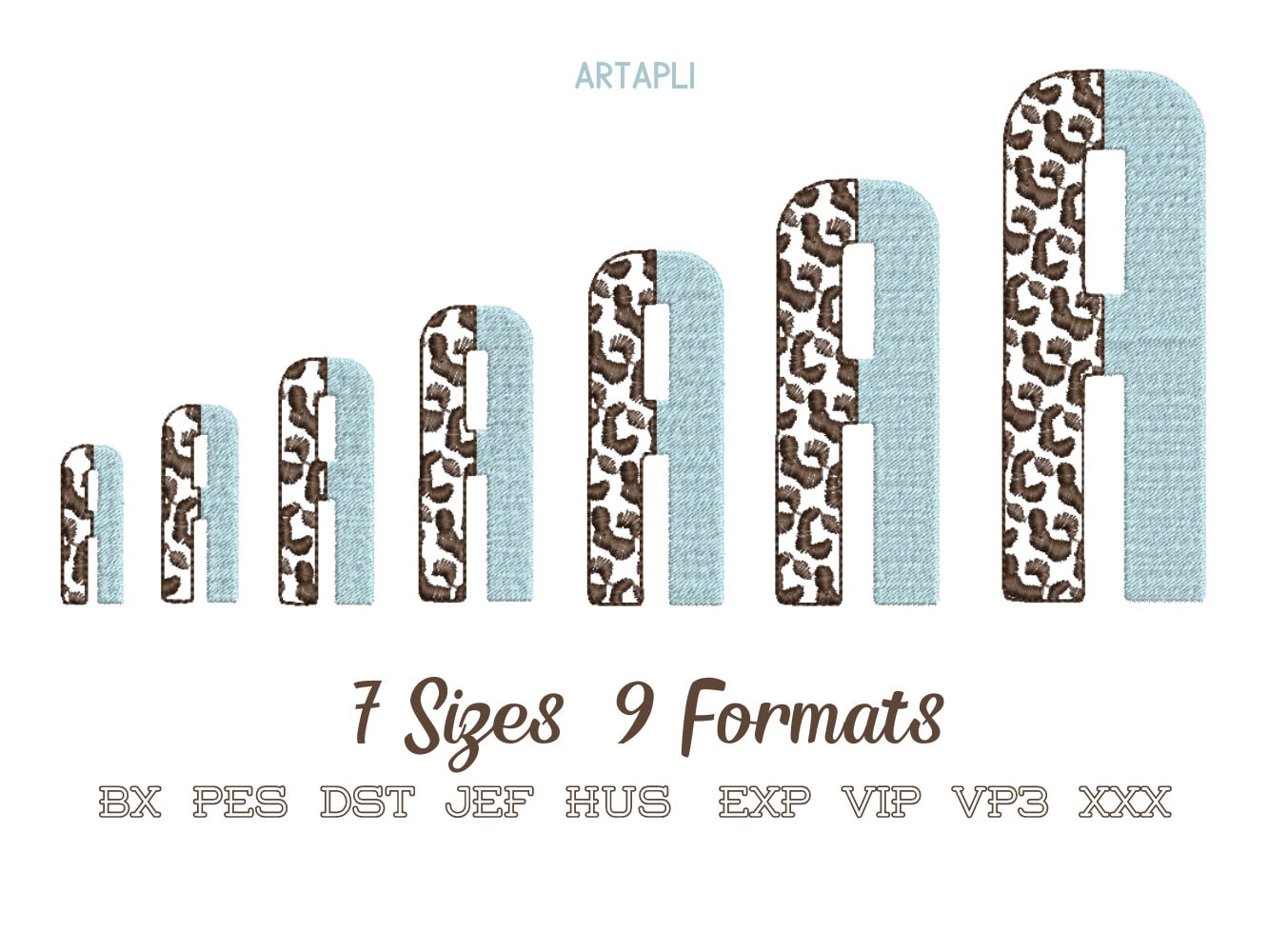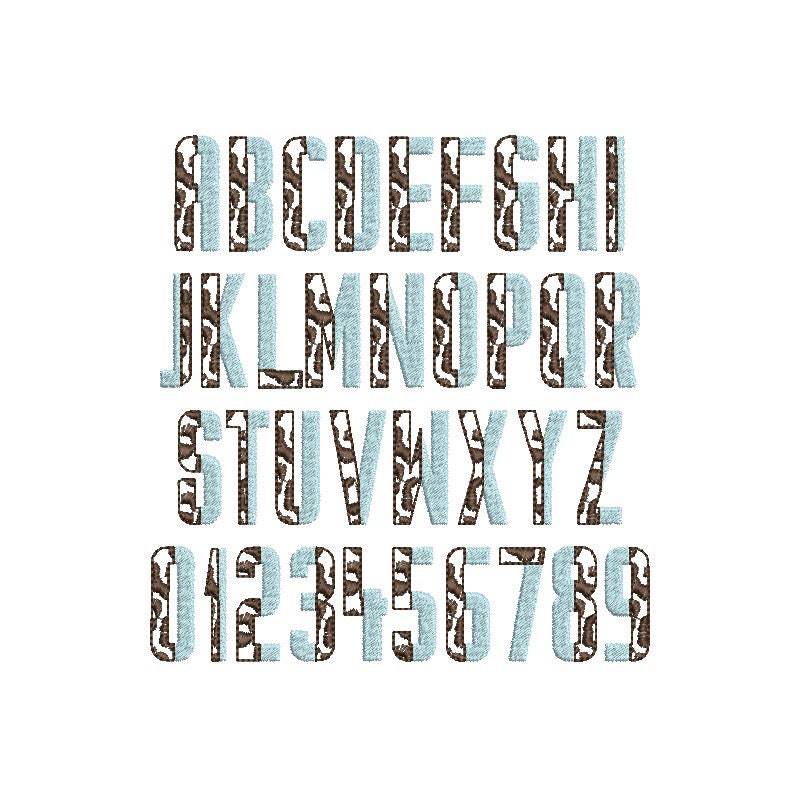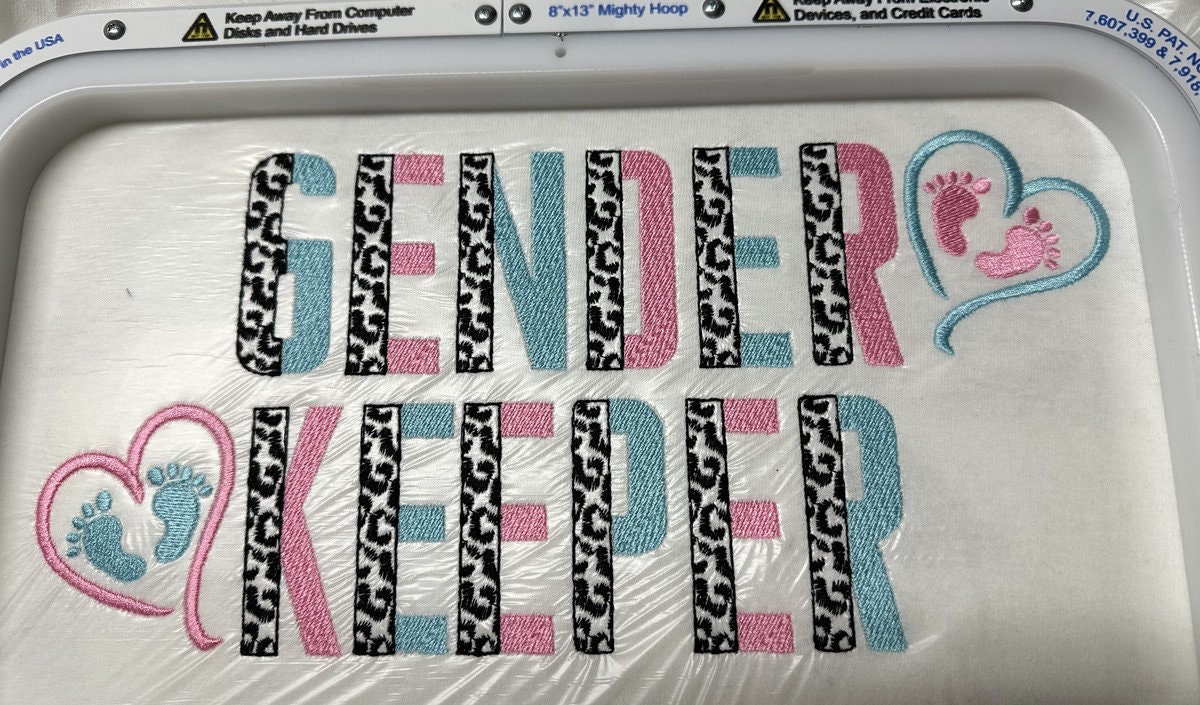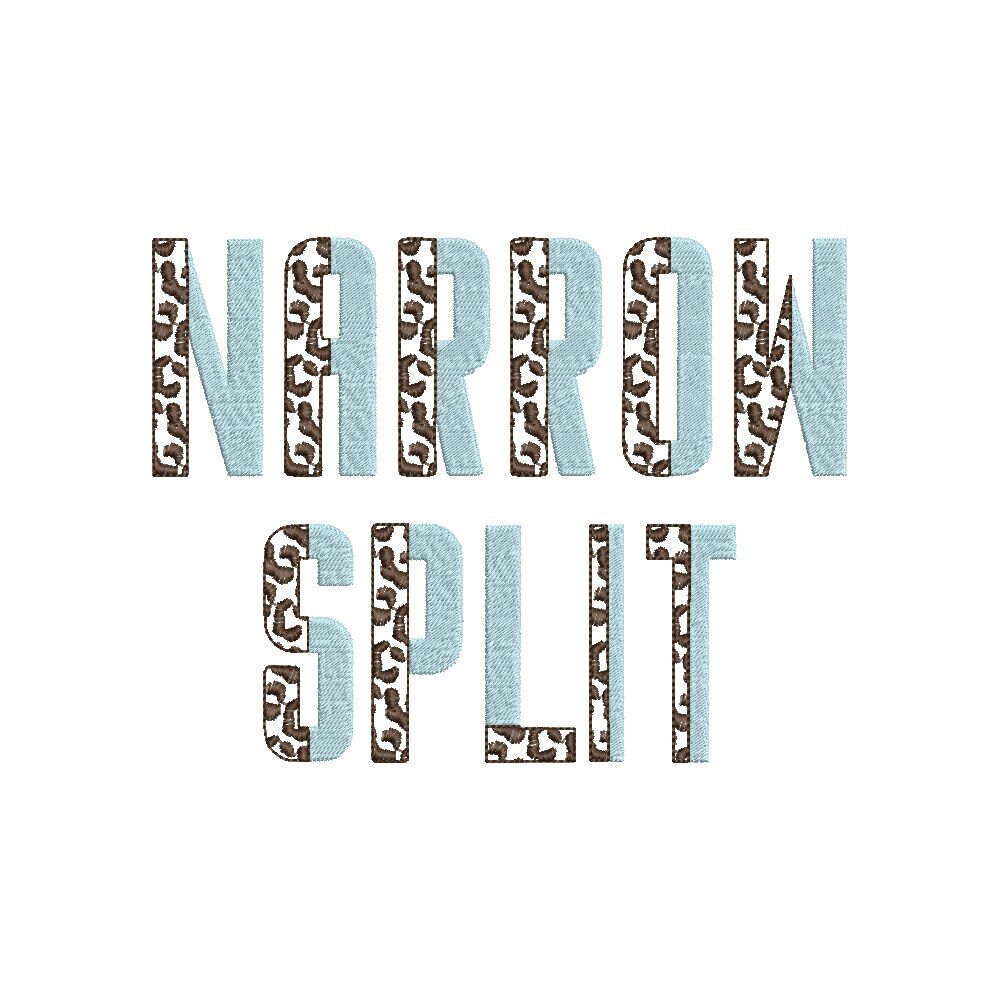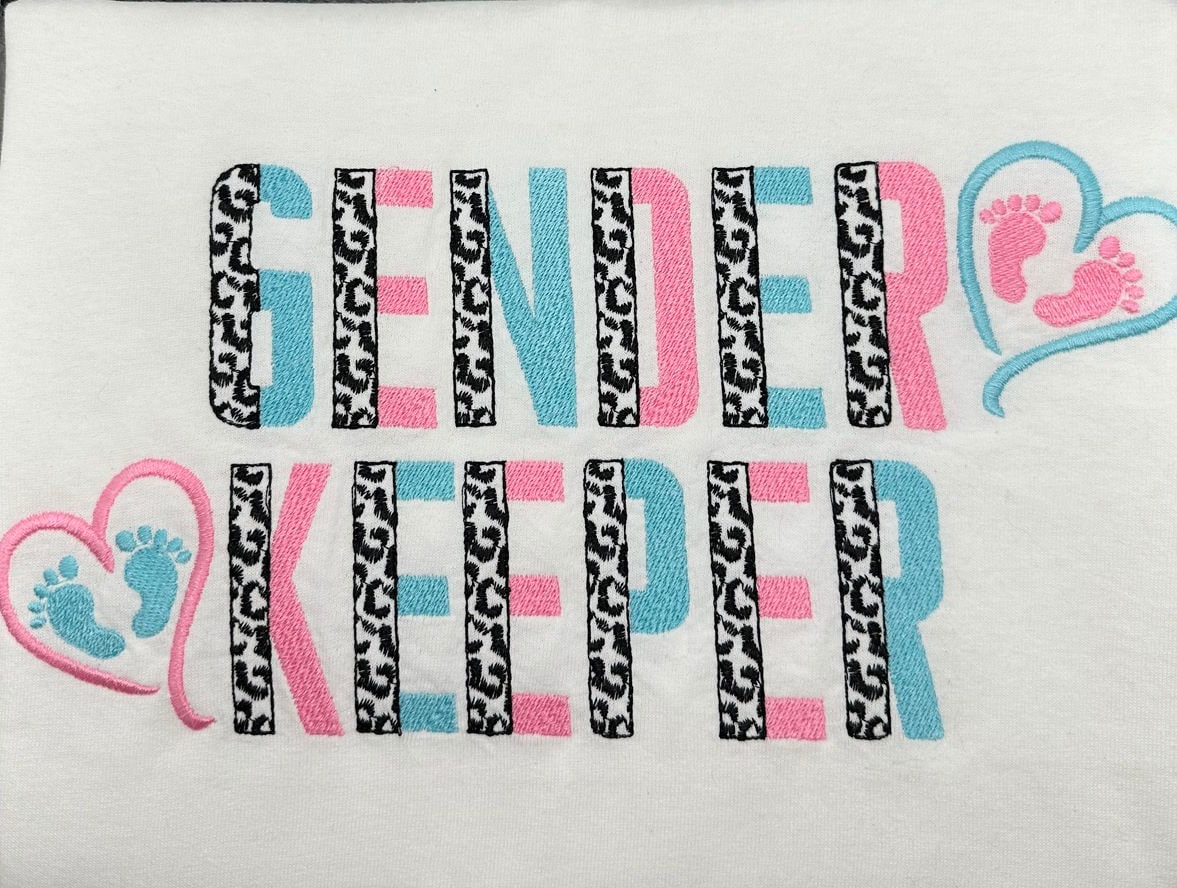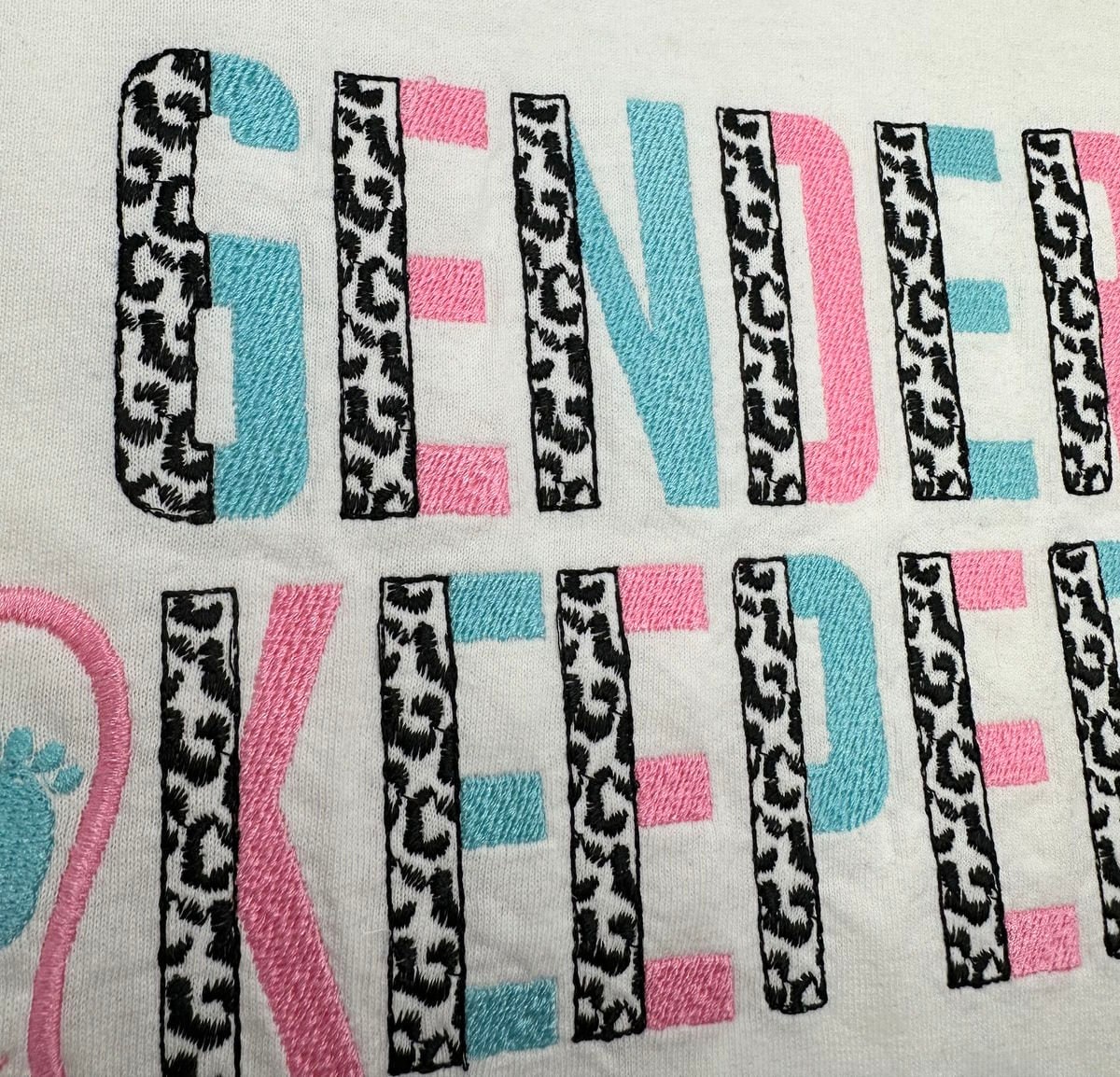
DUO Split Leopard spots 2 color Font TWO colors Font machine embroidery design DUOTONE small big block leopard fill stitch alphabet monogram
Leopard spots are a part of the design. The background fabric looks through. Stunning effect!
The plain part of the letters is a fill stitch.